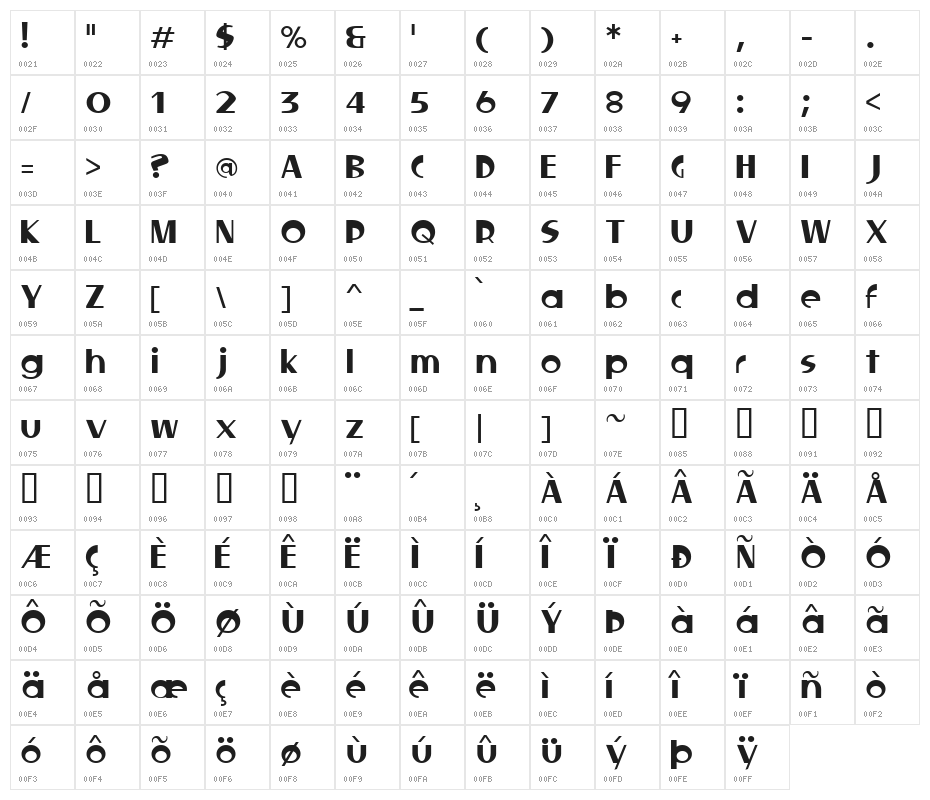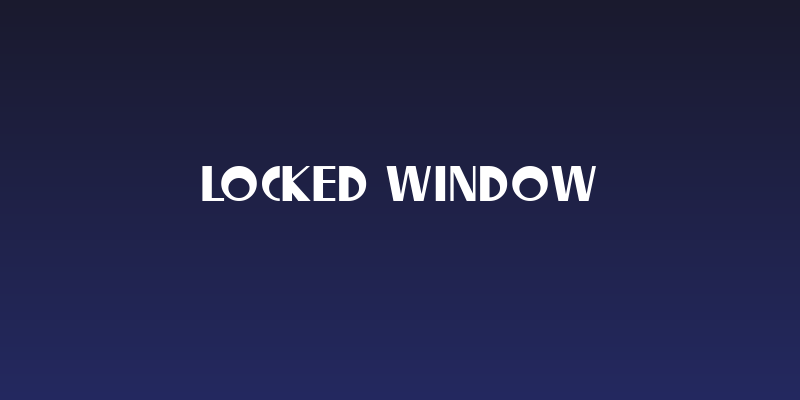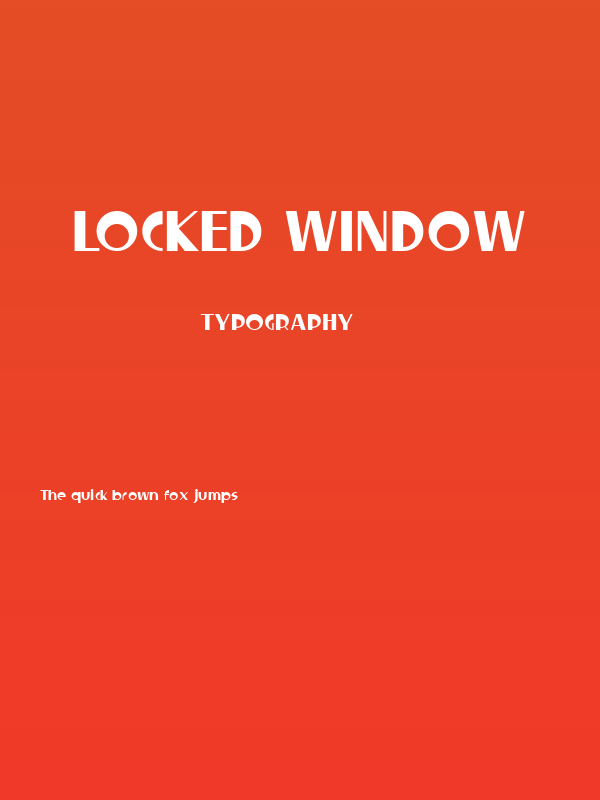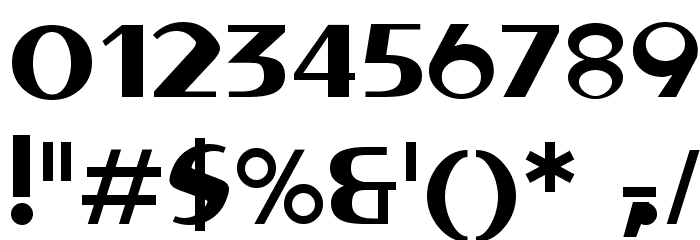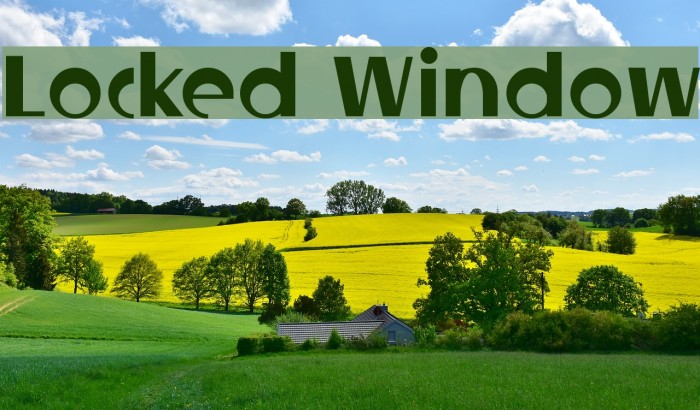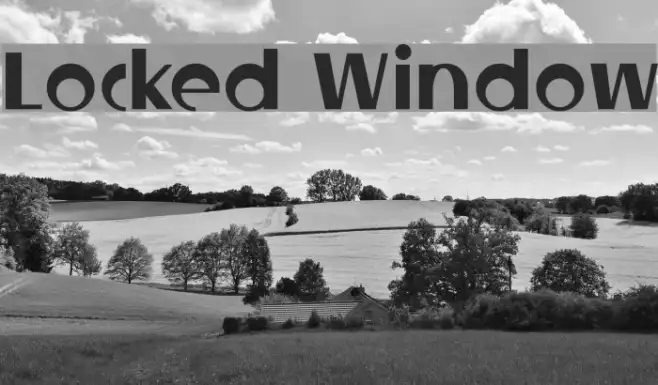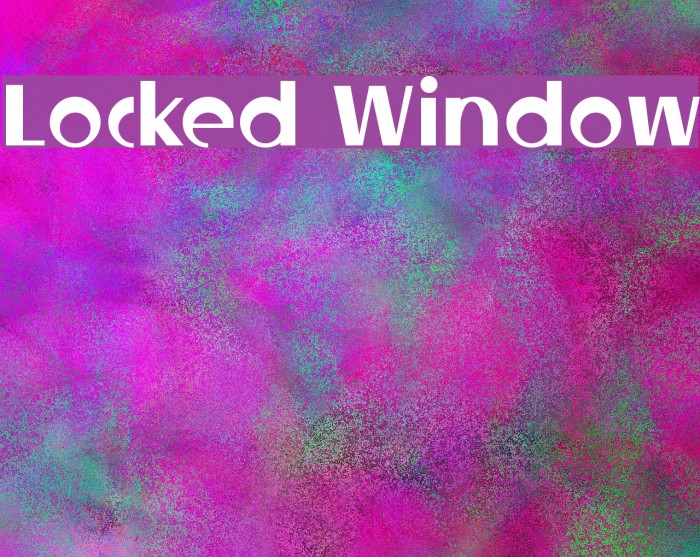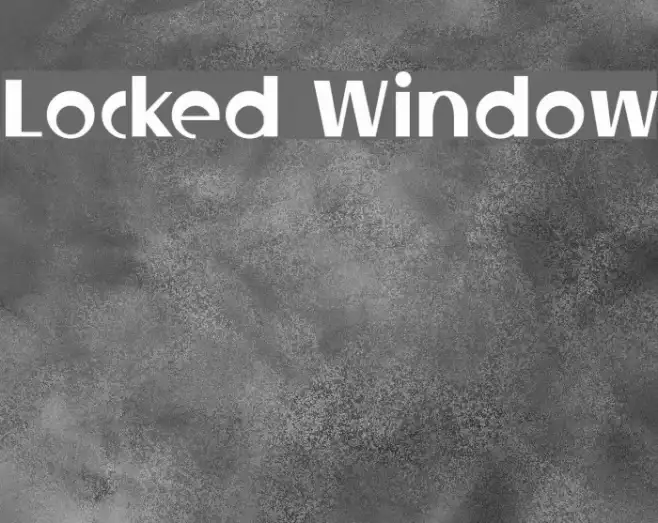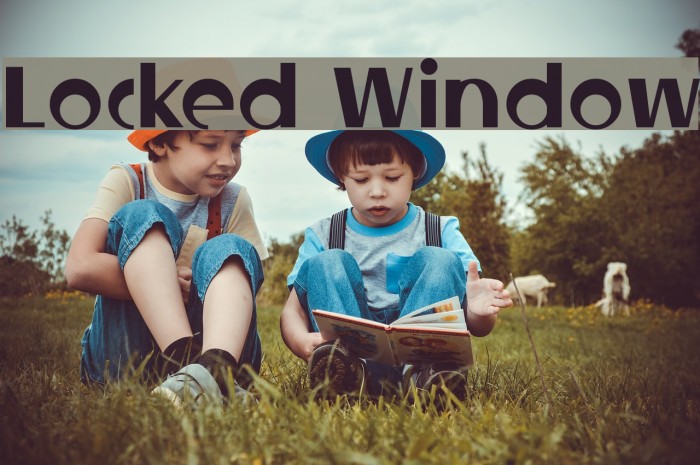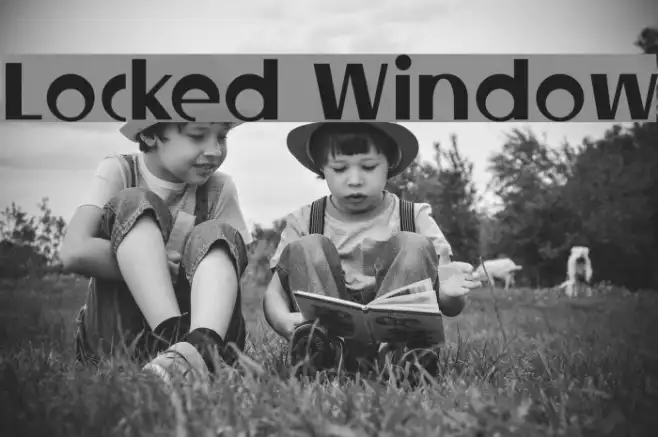
Locked Window Font
Locked Window Description
This font features a bold and modern design with a geometric structure. The uppercase letters are strong and impactful, with a distinct angularity that gives them a unique presence. The lowercase letters maintain a similar geometric style, offering a cohesive look across both cases. The numerals are clear and legible, designed to stand out with their bold strokes. Special characters are well-integrated, maintaining the overall aesthetic of the font. The font's design is suitable for making a strong visual statement, ideal for headlines and branding projects.
| Proposed Projects | Ideal for branding, headlines, posters, and any design requiring a strong visual impact. |